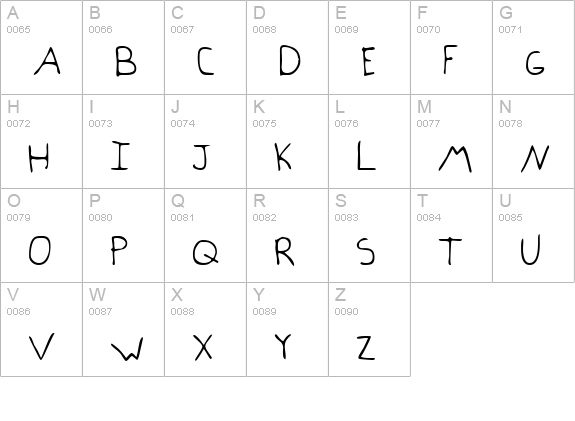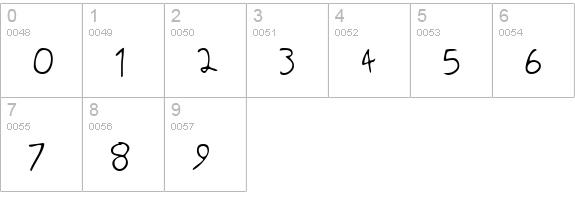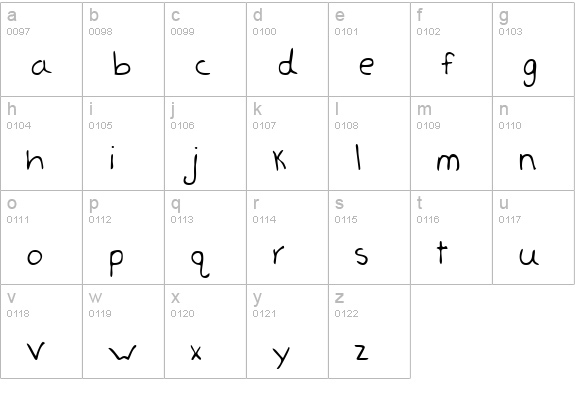
AmbersHand Regular Font Details
AmbersHand Regular is the standard, neutral variant in the AmbersHand typeface family \xE2\x80\x94 well suited to general body text, paragraphs, and standard typographic work.
AmbersHand Regular font is a charming and versatile typeface that exudes a warm and inviting feel. With its handwritten style and flowing strokes, this font is perfect for adding a personal touch to your designs. Whether you're working on invitations, greeting cards, or branding materials, AmbersHand Regular will bring a touch of elegance and whimsy to your projects. Best of all, AmbersHand Regular font is completely free to download at FontsMarket.com. Simply visit the website to access this delightful font and enhance your creative projects with its unique charm. Don't miss out on the opportunity to add a touch of handmade beauty to your designs with AmbersHand Regular font. Download it today and let your creativity shine!